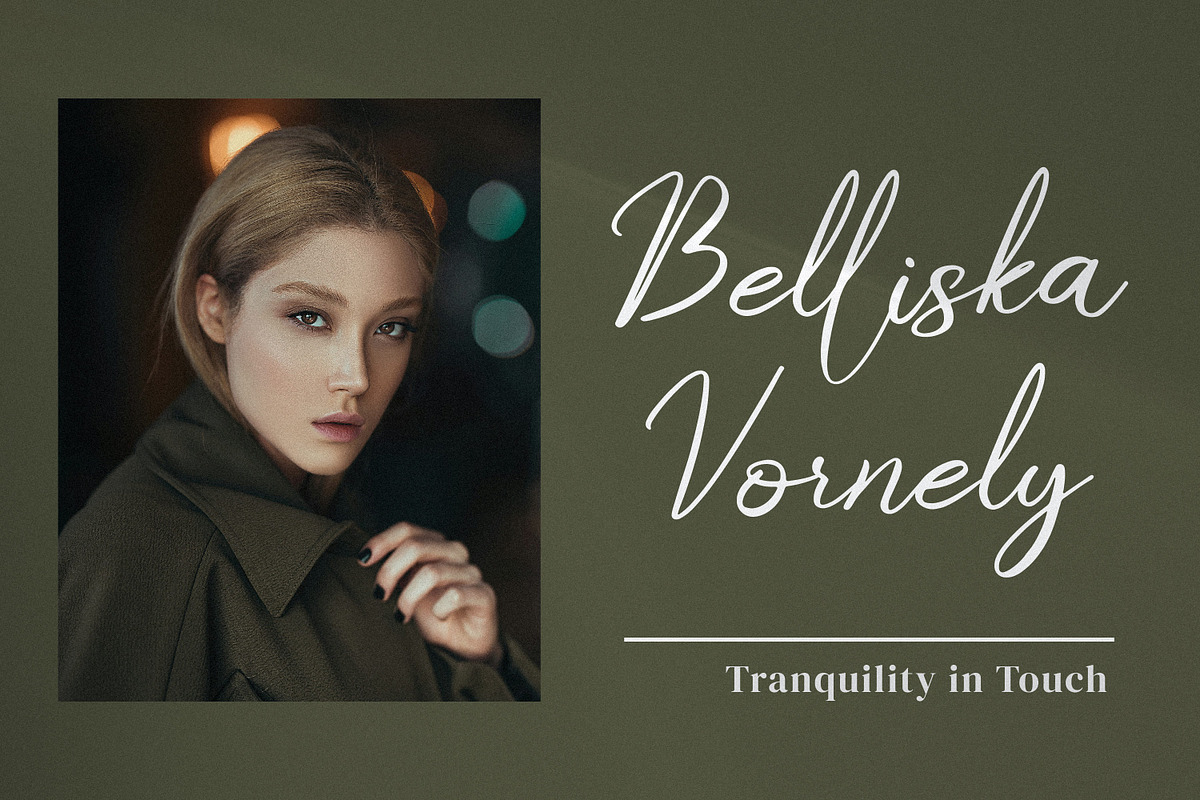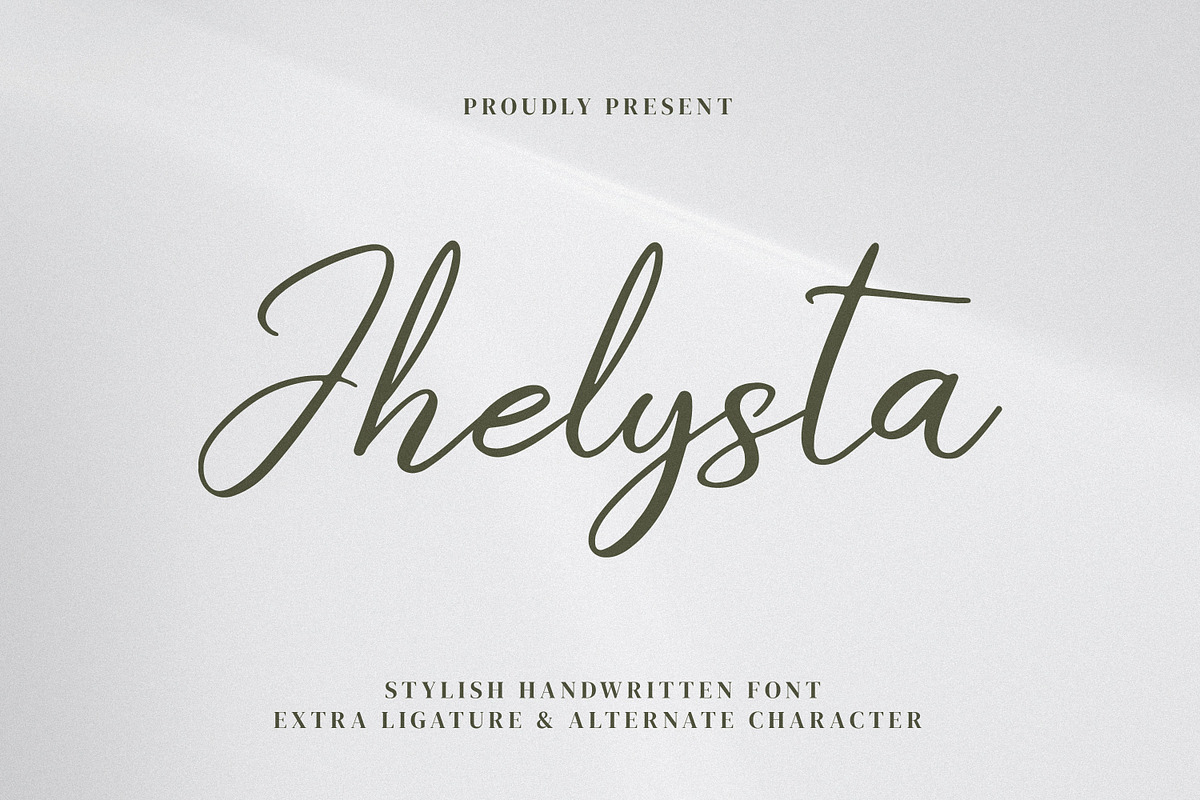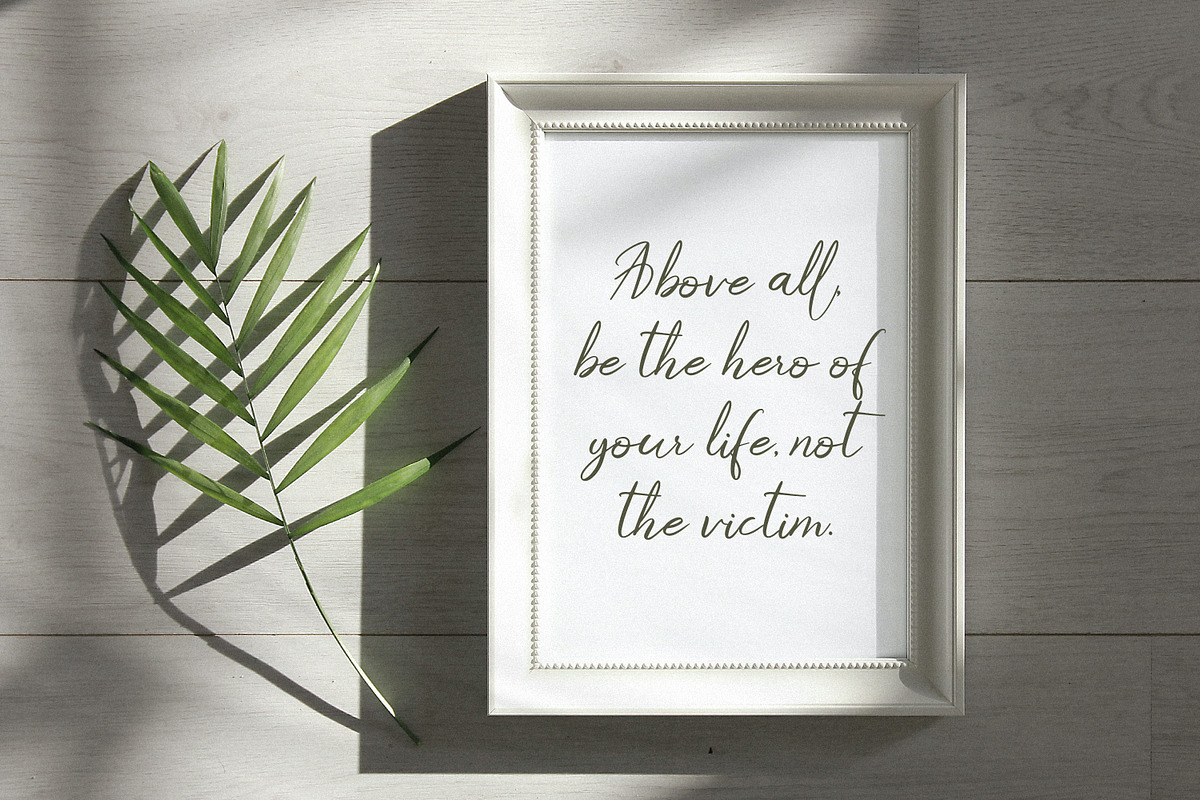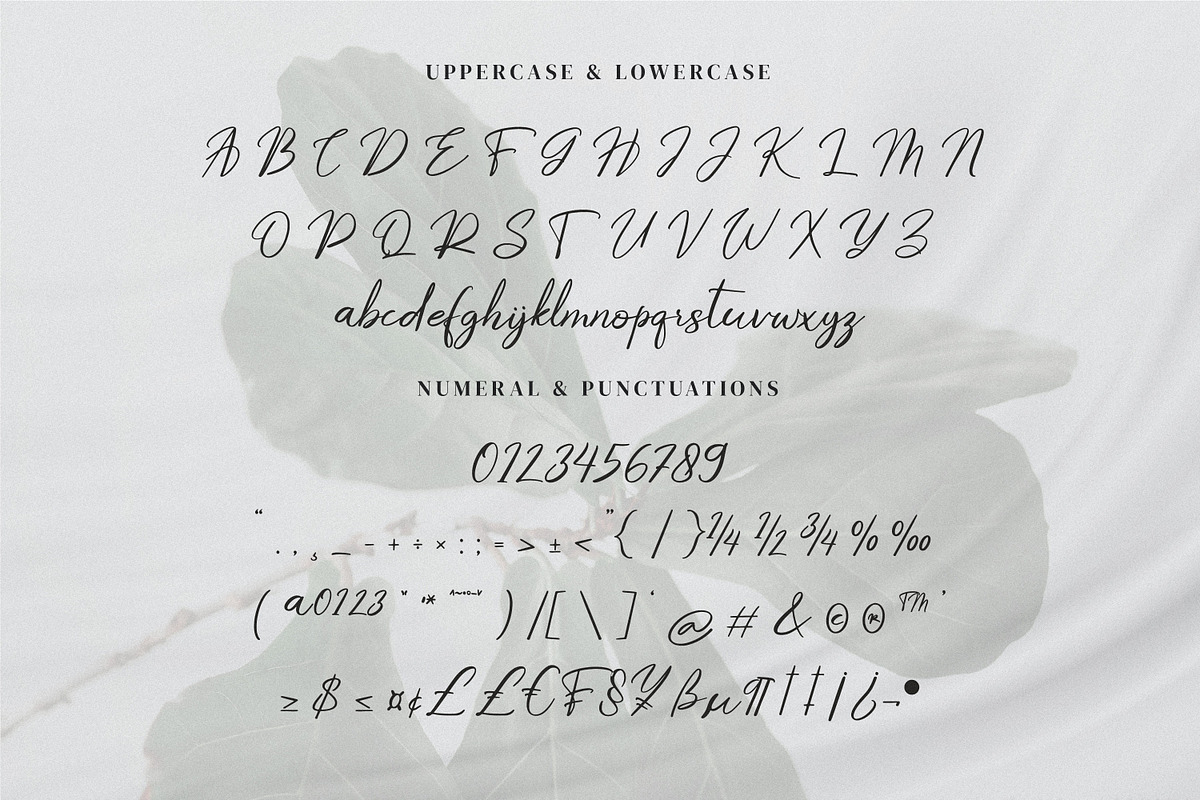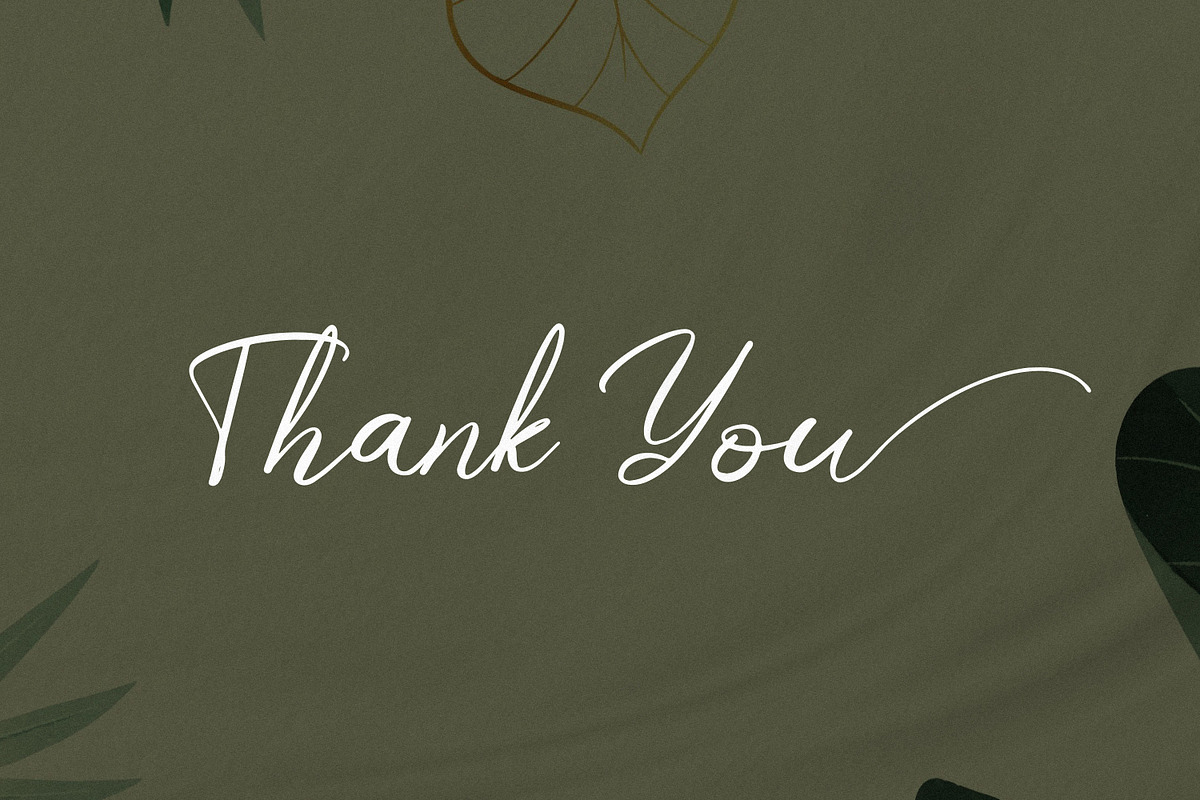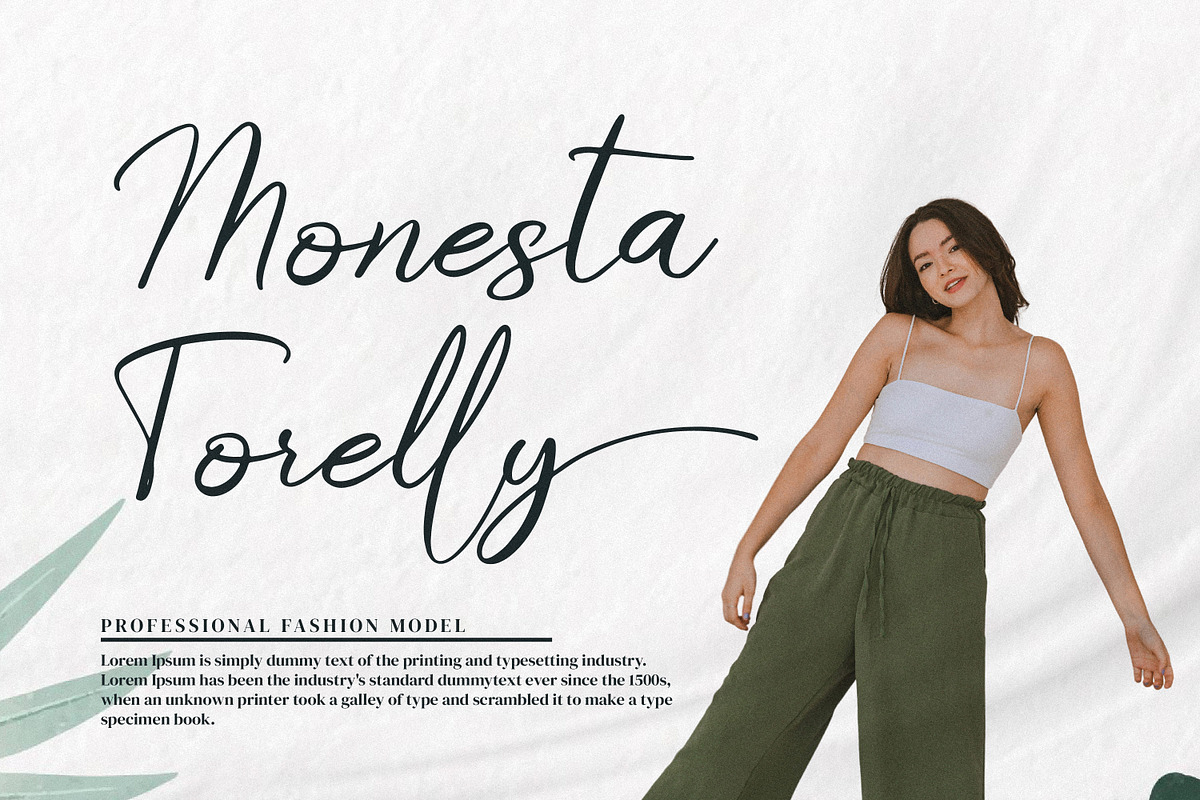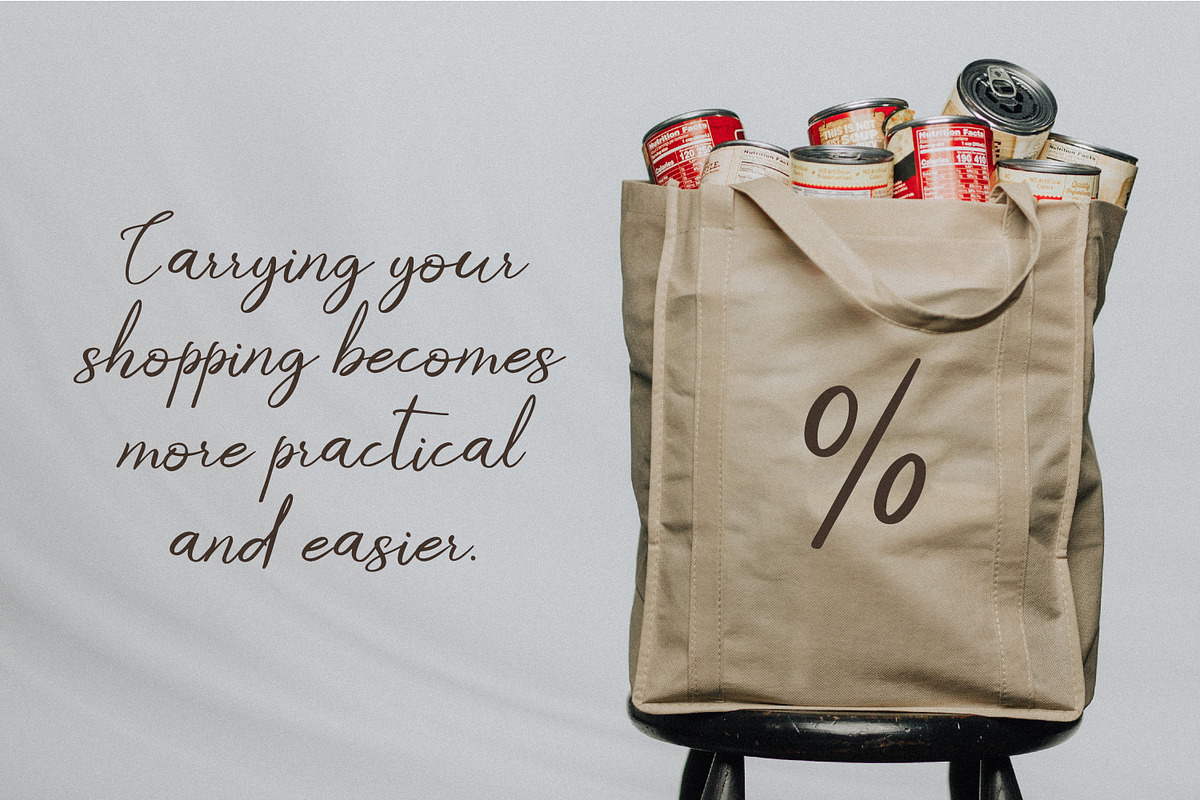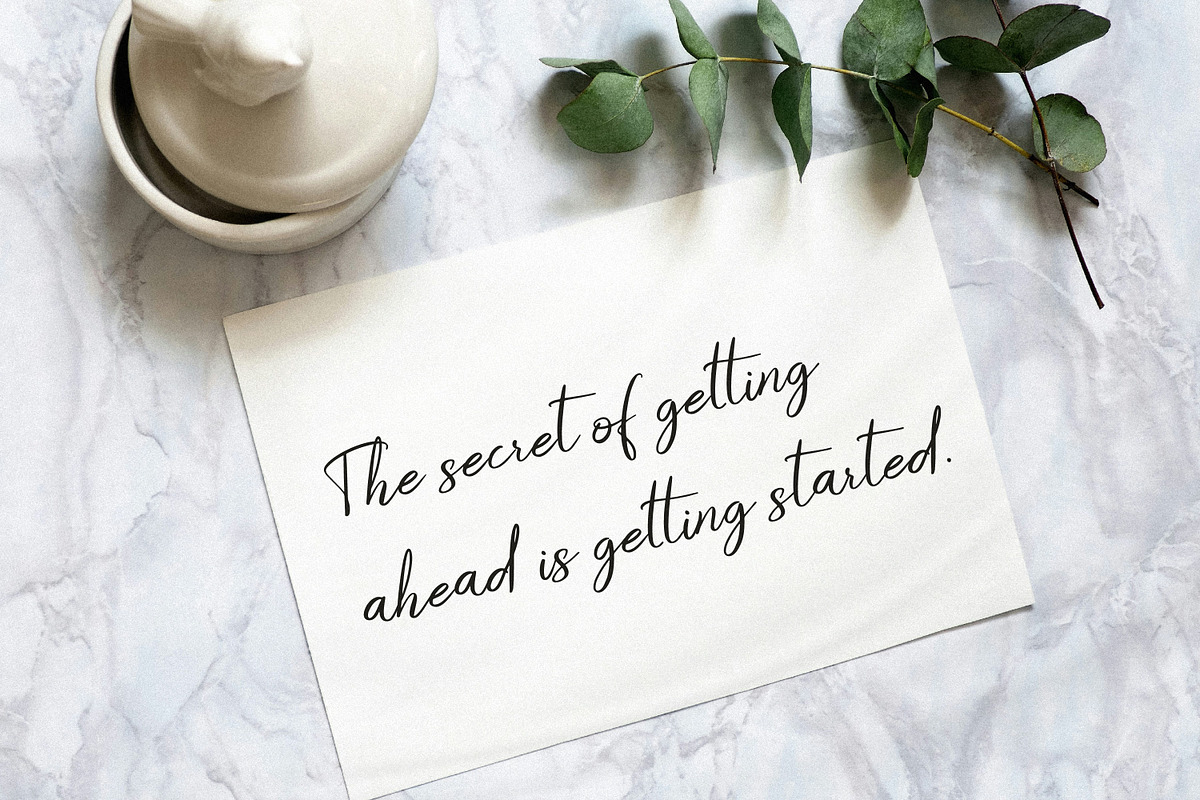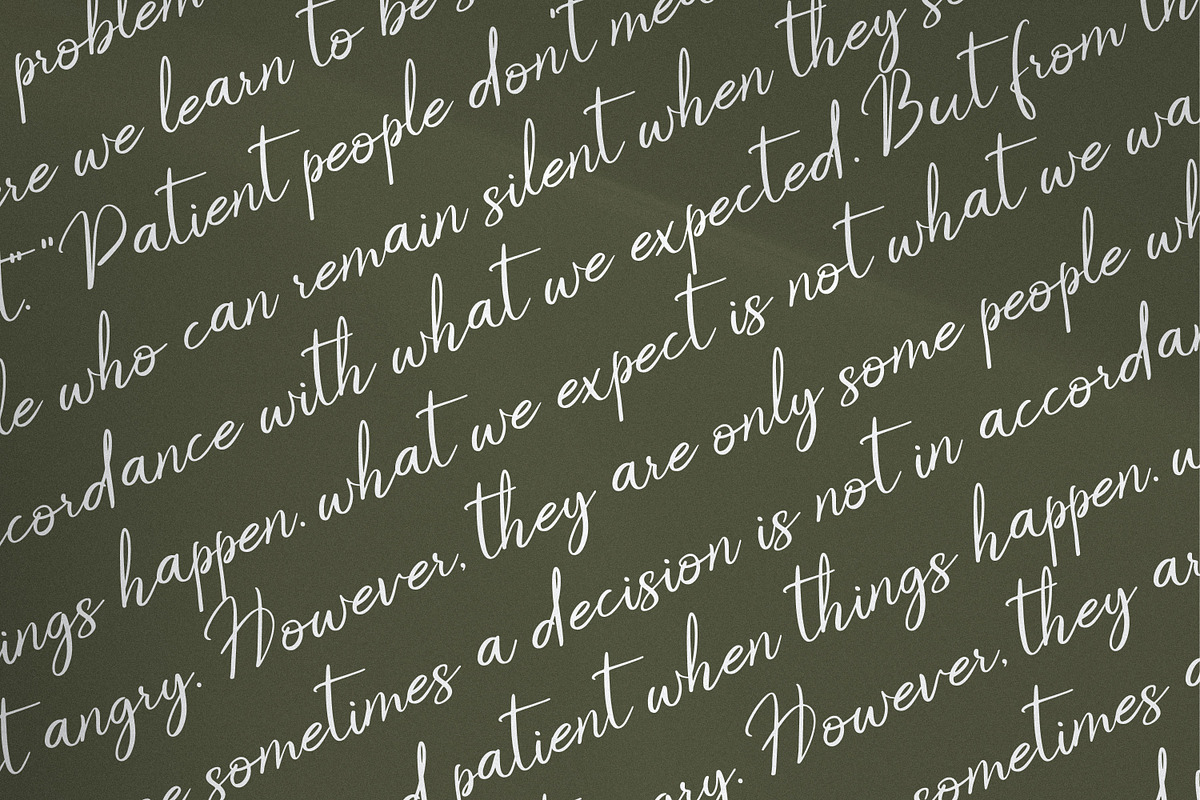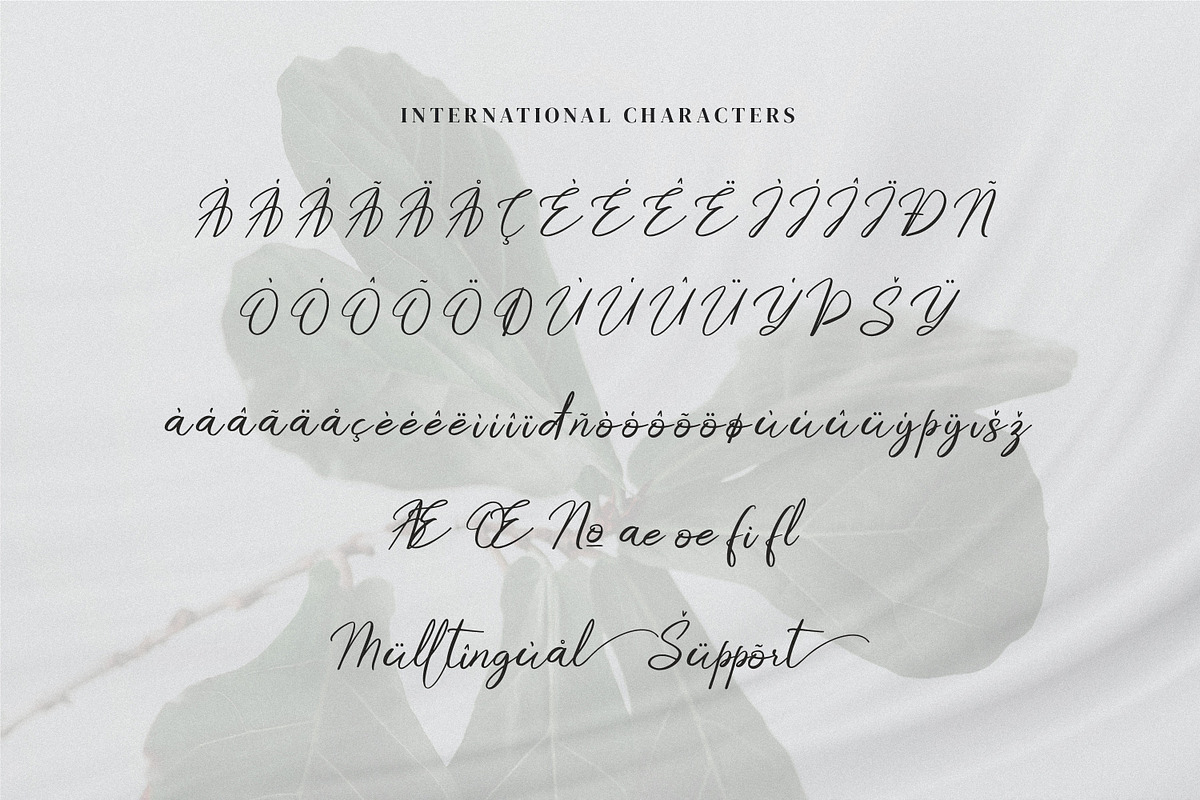
Jhelysta
Jhelysta - Stylish Handwritten Font, from Goresan Studio, suitable for any projects such as: logos, branding projects, homeware designs, product packaging, mugs, quotes, posters, shopping bags, t-shirts, book covers, name card, invitation cards, greeting cards, label, photography, watermark, special events, and all your other lovely projects that need a beautiful script taste.
- Alternate, Ligature and Swash
- Fonts include multilingual support.